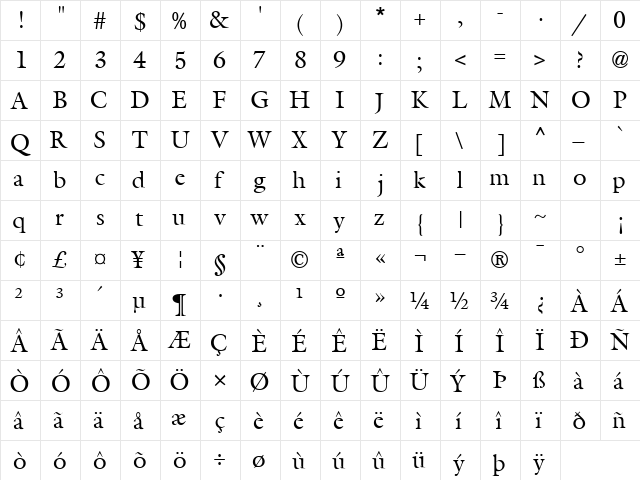
AcanthusSSK Regular
Design Context for AcanthusSSK Typeface
AcanthusSSK takes a measured approach to typography — its balanced proportions and neutral character make it a reliable workhorse for both digital and print work.